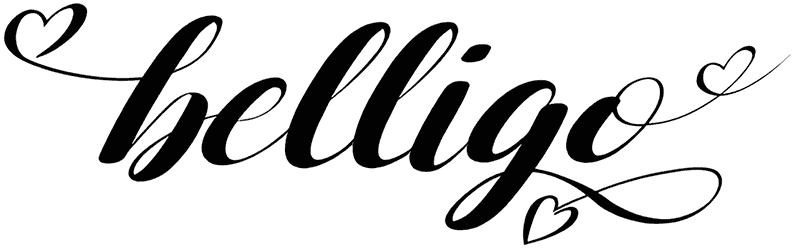
Belligo Font
Belligo is a perfect blend of contrast and elegance that carries a sense of delicacy, sincerity, and professionalism. One part of its character is thinner than the other part, so this script font easily grabs the attention of the audience to your product packaging, logo, mobile posters, or social media posts.
Aside from the lack of numbers, it would elevate the visibility of your work, so don’t overlook this heart font.